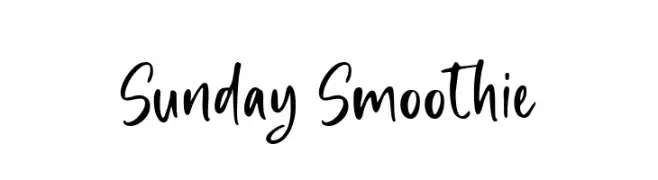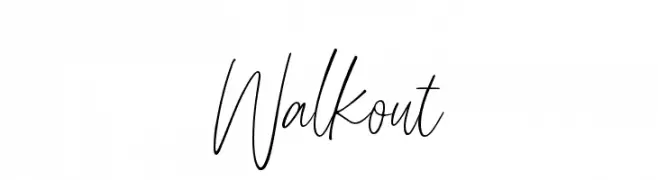
A bold, gothic blackletter font with intricate and ornate design.
A stylish and elegant script font with flowing, cursive characters.
A bold, serif font with strong, thick strokes and a classic, authoritative style.
A graceful, cursive font with elegant, flowing strokes and artistic flourishes.
A playful and energetic handwritten font with a casual vibe.
A bold, flowing script font with elegant curves and a handwritten style.
A playful, handwritten font with a casual and dynamic style.
A modern, handwritten font with a casual and elegant style.
A playful, hand-drawn font with bold, whimsical characters.
( Fonts by Darrell Flood )
A playful, bold font with cartoonish, dynamic characters.